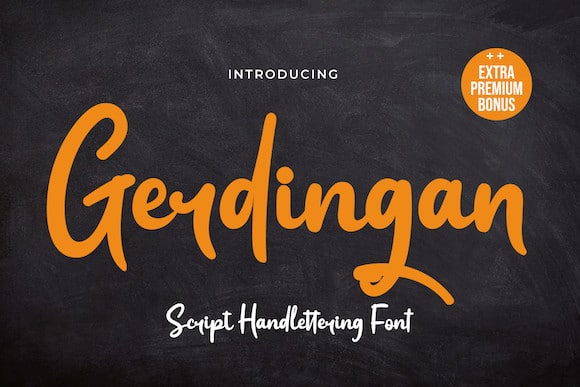
Gerdingan Script Font
Introducing Gerdingan Script Font. Fonts are made with a script model that is intended to write beautiful names, and beautiful words and sentences of course with typography harmony.
Gerdingan Script Font also offers beautiful abstract typography harmony for a wide variety of design projects, including natural handwriting in digital form for designs, quote designs, for social media business designs, advertisements, trademarks, promotional banners, posts, posters, signatures, and all designs require handwriting or whatever design you want.